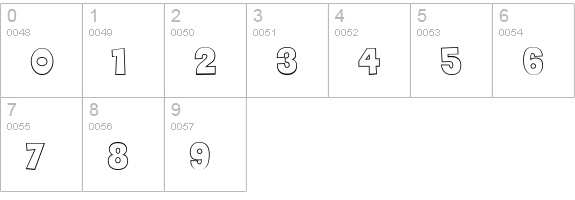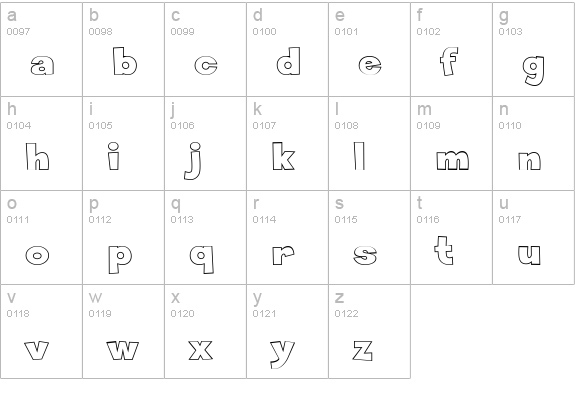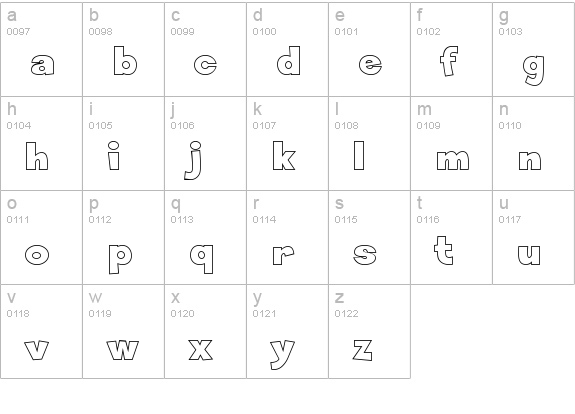
Sneakerhead BTN Outline Font Details
Sneakerhead BTN Outline font is a bold and dynamic typeface that captures the essence of the sneakerhead culture. With its clean lines and edgy design, this font is perfect for capturing attention and making a statement. Whether you're creating a logo, designing a poster, or adding a unique touch to your website, Sneakerhead BTN Outline font is the perfect choice to add a touch of urban style. This font is not only visually striking but also highly versatile. It can be used for both display and text purposes, making it suitable for a wide range of design projects. Its bold and outlined letters add a sense of boldness and modernity to any design, creating a visual impact that is hard to ignore. What sets Sneakerhead BTN Outline font apart is its ability to evoke a sense of passion and enthusiasm for sneakers. The font's unique design pays homage to the sneakerhead culture, capturing the excitement and obsession that comes with collecting and appreciating sneakers. It is a font that truly speaks to those who are passionate about sneakers and want to express their love for the culture in their designs. One of the best things about Sneakerhead BTN Outline font is that it is freely available to download at FontsMarket.com. This means that you can get your hands on this eye-catching font without any cost. Whether you're a professional designer or someone who just loves to experiment with typography, having access to a high-quality font like Sneakerhead BTN Outline font can take your designs to the next level. So, if you're looking to add a touch of urban style and passion to your designs, look no further than Sneakerhead BTN Outline font. Download it for free at FontsMarket.com and unleash your creativity today.